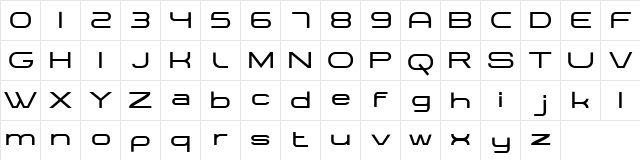
Starixo is a composed and adaptable typeface that performs quietly and consistently across a wide range of design contexts.
Pro Tip: Use Starixo in both headline and body roles to test its range before committing to a single application.